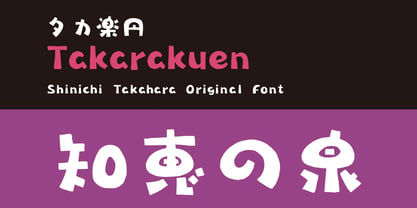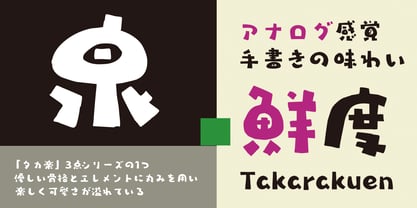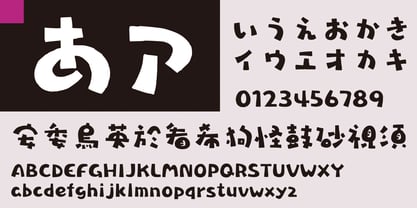
Takarakuen
by Taka Design Production
The Takarakuen Font Family was designed by and published by Taka Design Production. Takarakuen contains 1 styles. More about this family
This is one of the three “Takaraku” series. The simplicity of handwritten handwriting and the balanced, plump roundness of the typeface make it a delightful handwritten typeface.